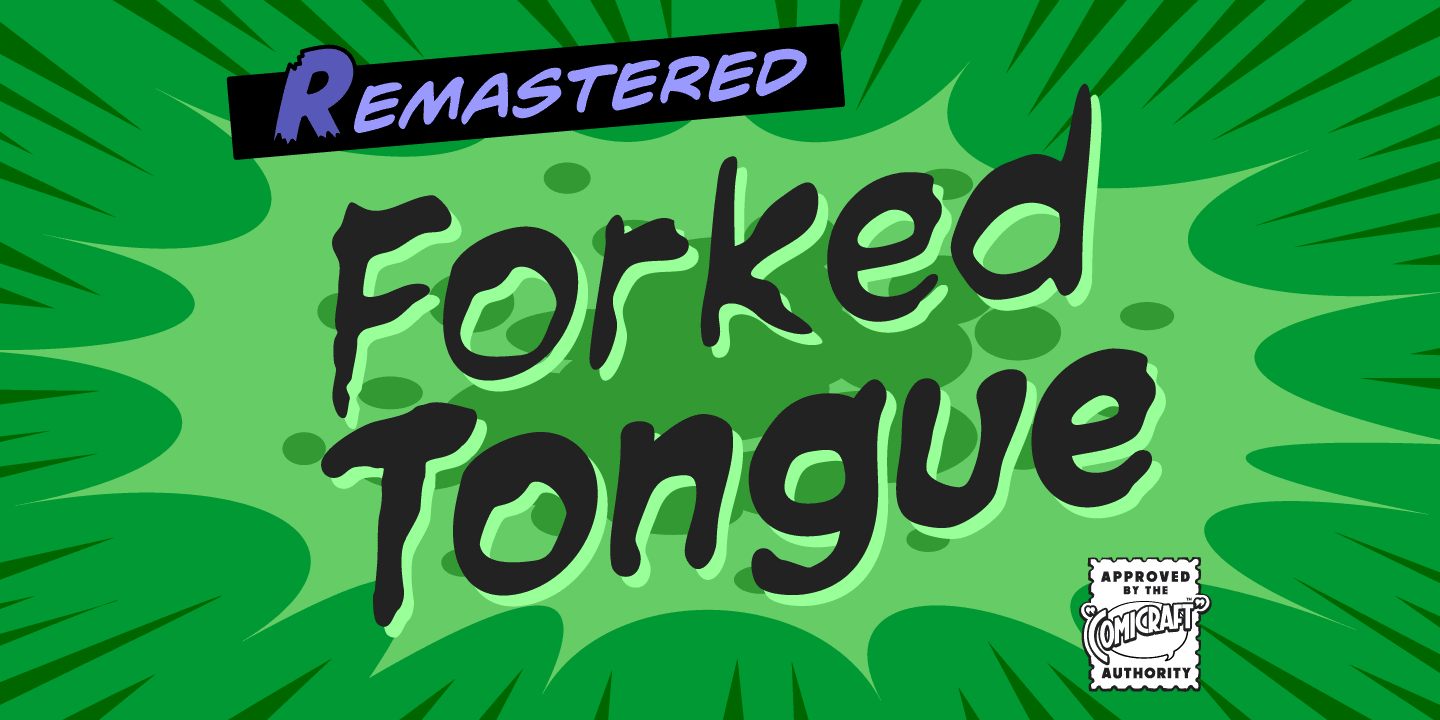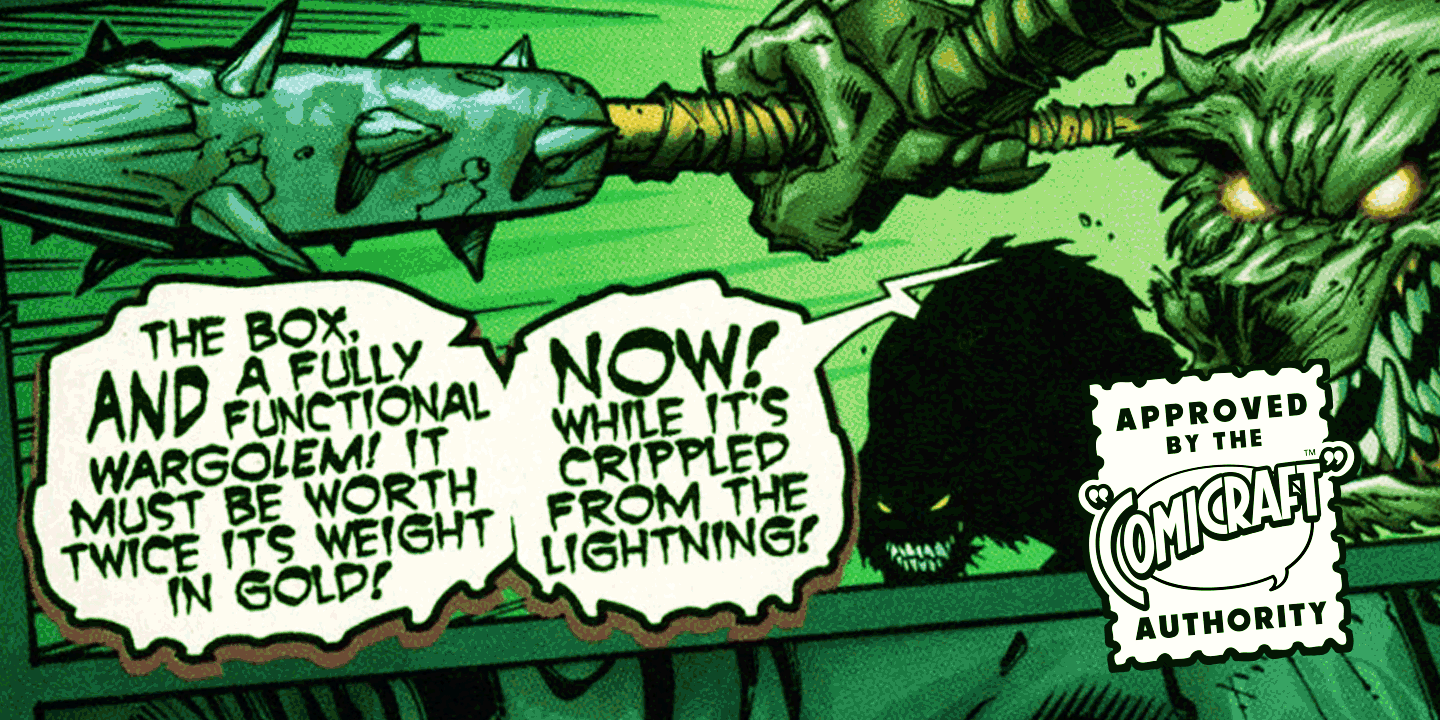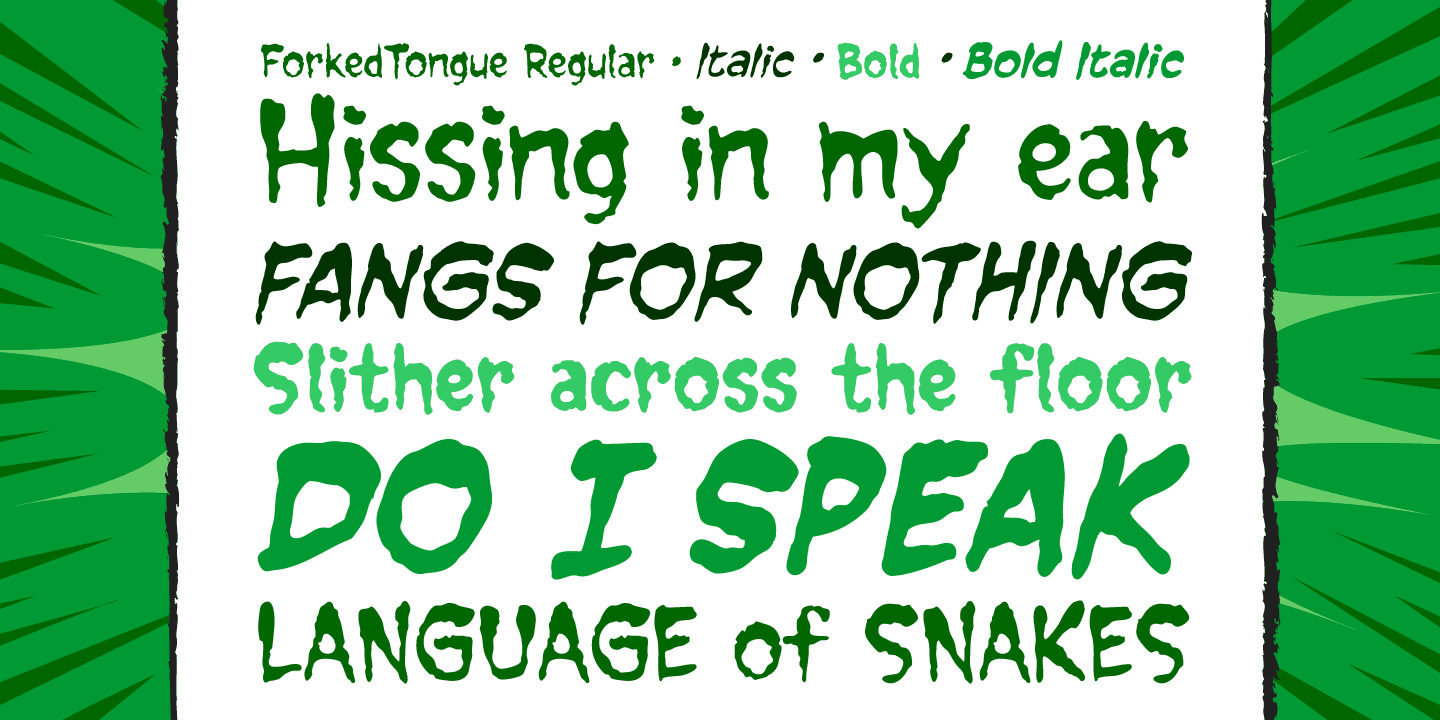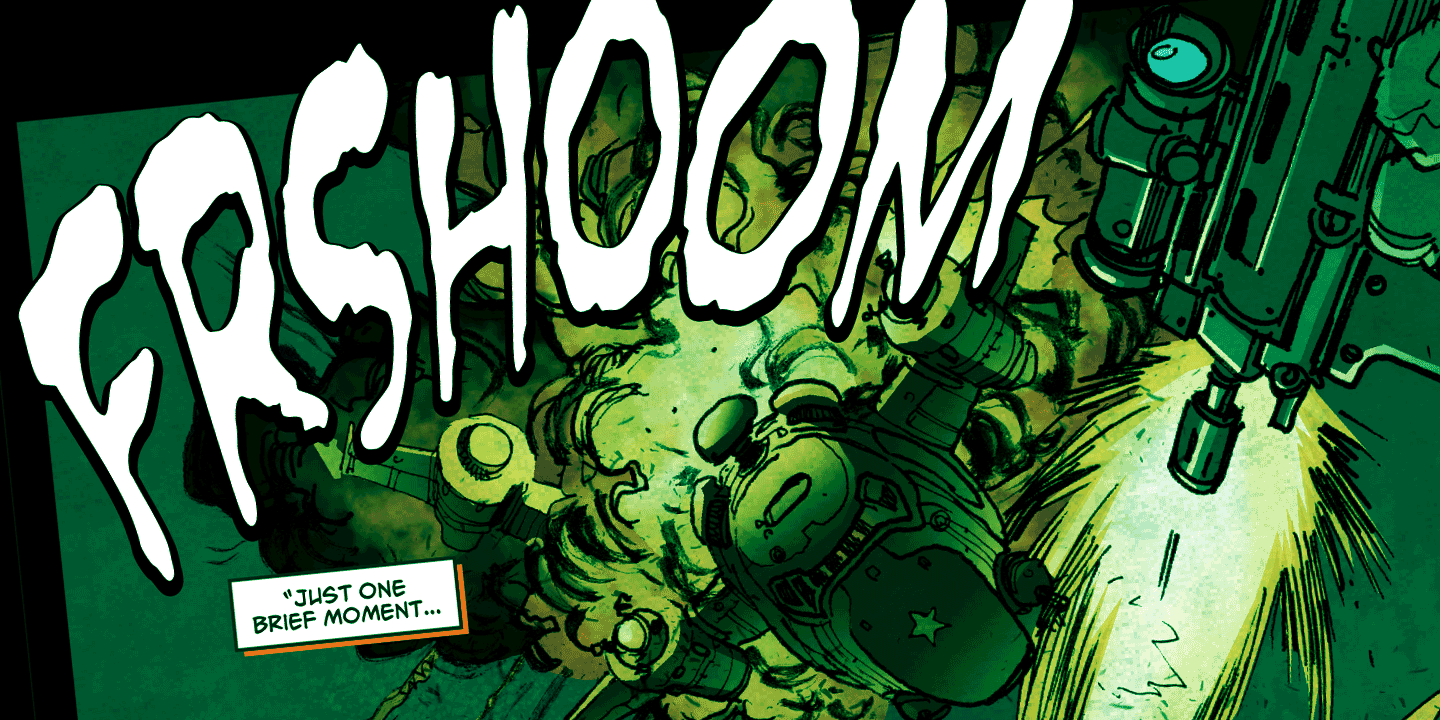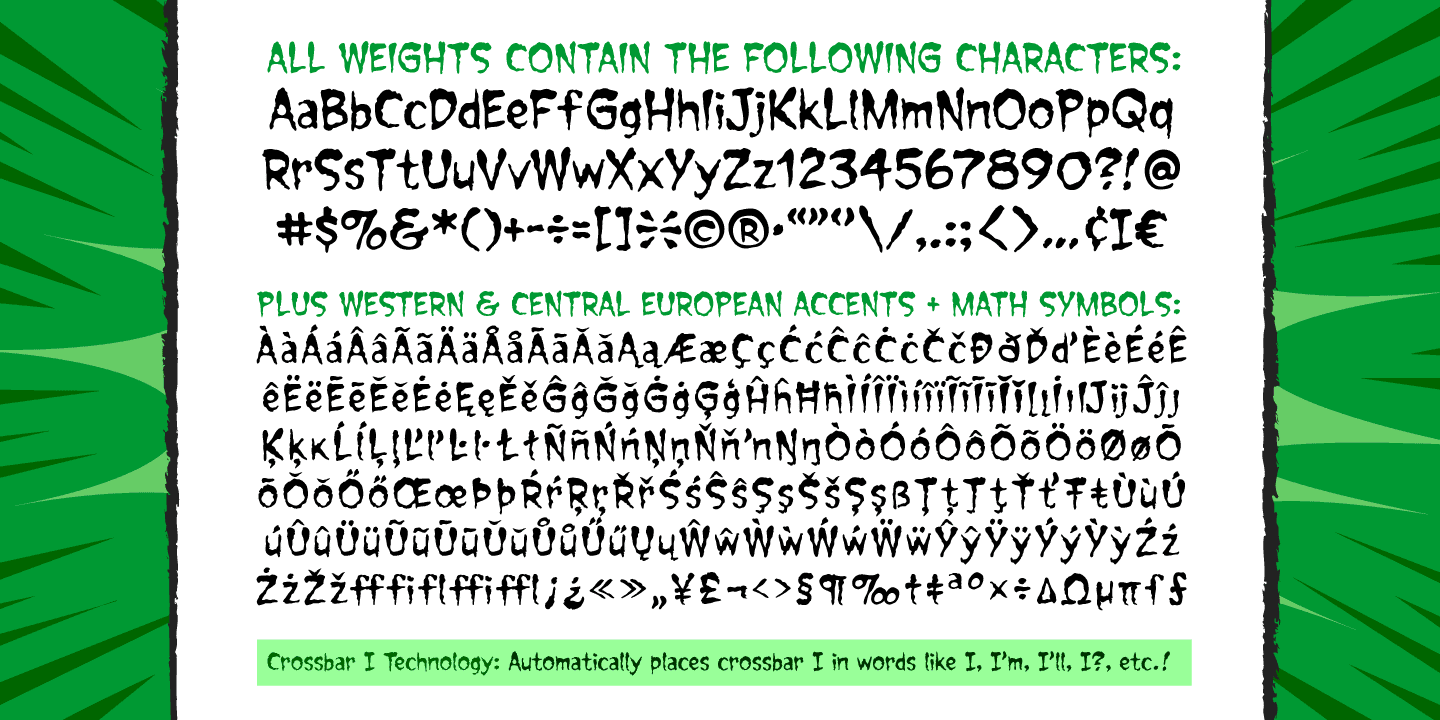
About the Forked Tongue Font
About Forked Tongue Font Family Are you Troubled by Ghostly Voices in the night? Do you hear the Terrifying Tones of Demons and Ghouls in your Attic or Cellar? Have you or any of your family spoken with “Forked Tongue? Well, talk of the devil, Forked Tongue happens to be the latest offering brought to you buy our courteous and efficient staff this month (now on call twenty-four hours a day to serve all your supernatural lettering needs).
If it Sounds Spooky, it most probably speaks with Forked Tongue.Oh, but if you really have got ghosts or poltergeists, well, um, we don’t know who you gonna call. Features: Four weights (Regular, Italic, Bold & Bold Italic) with upper and lower case alphabets. Includes Western and Central European international characters. Designers: John RoshellPublisher: ComicraftFoundry: ComicraftDesign Owner: ComicraftMyFonts debut: Oct 26, 2005 Forked Tongue